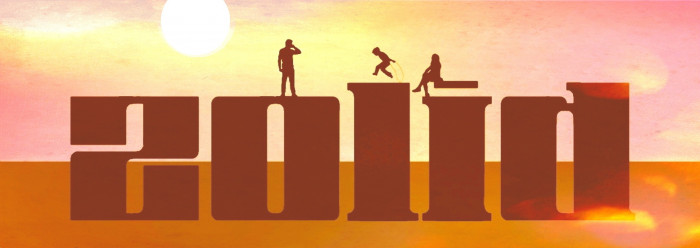
Solid squared unicase with a lot of alternates (placed in the lowercase zone), almost two fonts in one. Enjoy.
I love how confident this feels, very striking design!
Nice work again @elmoyenique. Love the samples that make these glyphs monumental!